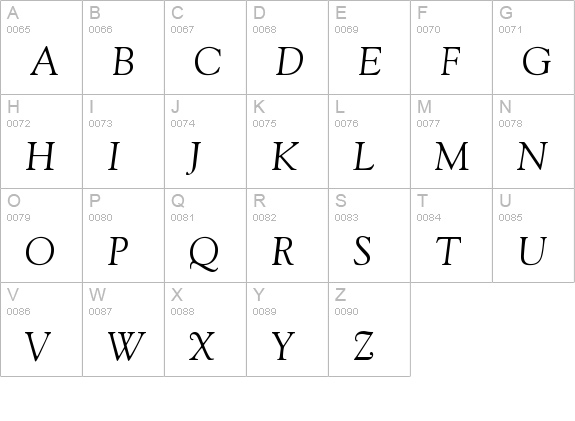
Goudy Oldstyle Std Italic Font Details
Goudy Oldstyle Std Italic is a distinctive, italic variant in the Goudy typeface family \xE2\x80\x94 well suited to design and typography projects.
Goudy Oldstyle Std Italic font is a timeless and elegant typeface that exudes sophistication and class. Its graceful slanted design adds a touch of flair and personality to any text, making it perfect for conveying a sense of creativity and style. The flowing curves and delicate serifs of this font create a harmonious balance between tradition and modernity, making it a versatile choice for a wide range of design projects. What's even better is that Goudy Oldstyle Std Italic font is available for free download at FontsMarket.com. This means that you can easily access this exquisite typeface without any cost, making it a valuable addition to your font collection. Whether you're working on a professional project or simply looking to enhance your personal designs, Goudy Oldstyle Std Italic font is sure to elevate your work with its timeless charm and refined beauty.